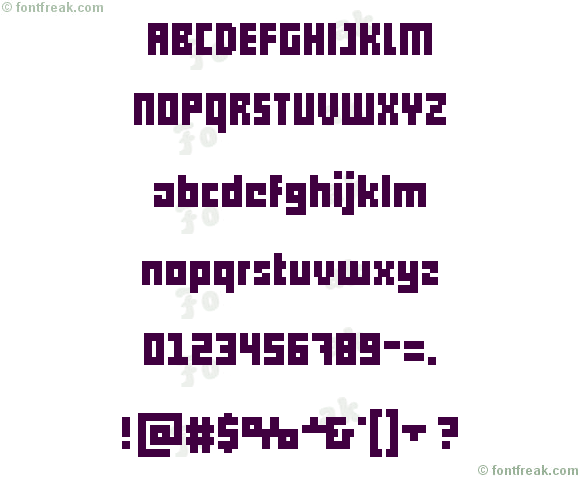
pxll
The pxll font by Levi Szekeres is a captivating display typeface that seamlessly marries modern aesthetics with a touch of whimsy. This sans-serif font is characterized by its bold, geometric forms and distinctive cut-out shapes, giving it a unique visual flair. The stroke weight is consistent throughout, providing a sense of stability while the balanced spacing between letters enhances readability. The minimal contrast in stroke thickness contributes to its contemporary vibe, making it an excellent choice for various design applications.
Ideal for creative projects, pxll works beautifully in settings such as eye-catching movie posters, trendy restaurant menus, and dynamic branding for small businesses. Its playful yet polished appearance makes it suitable for use in digital content, social media graphics, and promotional materials aimed at engaging a modern audience. Graphic designers and content creators will find this font particularly appealing, as it can elevate visual storytelling and enhance brand identity.
The target audience for pxll includes small business owners looking to establish a memorable presence and graphic designers seeking innovative typefaces that stand out. Its versatility allows for use in both print and digital media, ensuring that it can adapt to various contexts while maintaining a strong visual impact.